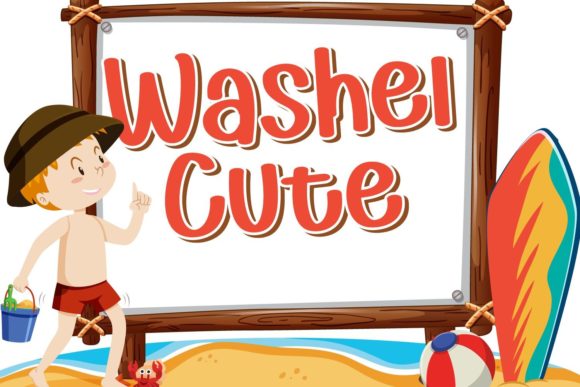
Introducing Washel Cute Font: The Perfect Addition to Your Designs
Are you looking for a font that can add a touch of youth and joy to your designs? Look no further than Washel Cute Font. This cool and friendly display font is perfect for party invitations, gatherings, and any design that requires a playful and youthful vibe.
What is Washel Cute Font?
Washel Cute Font is a display font designed to bring a smile to your face. Its cute and playful design makes it perfect for designs that require a touch of whimsy and fun. The font is easy to read and has a friendly feel to it, making it perfect for use in a variety of designs.
Features of Washel Cute Font
Washel Cute Font has several features that make it a great addition to your designs. Some of its key features include:
- Playful and youthful design
- Easy to read
- Perfect for party invitations and gatherings
- Great for use in designs that require a touch of whimsy and fun
- Cute and friendly feel
How to Use Washel Cute Font
Washel Cute Font is easy to use and can be incorporated into a variety of designs. Here are a few ways you can use this font:
- Party Invitations: Use Washel Cute Font to create fun and playful party invitations that will set the tone for your event.
- Gatherings: Whether you’re hosting a baby shower, bridal shower, or game night, Washel Cute Font is perfect for creating invitations and decorations.
- Designs: Add a touch of whimsy and fun to your designs with Washel Cute Font. Use it to create eye-catching headlines, titles, and more.
Benefits of Using Washel Cute Font
There are several benefits to using Washel Cute Font in your designs. Some of the benefits include:
- Adds a touch of youth and joy to your designs
- Perfect for designs that require a playful and youthful vibe
- Easy to read and understand
- Great for use in a variety of designs, from party invitations to decorations
Tips for Using Washel Cute Font
Here are a few tips for using Washel Cute Font in your designs:
- Use it sparingly: While Washel Cute Font is perfect for adding a touch of whimsy and fun to your designs, it’s best to use it sparingly. Use it for headlines, titles, and other important elements, but stick to a more traditional font for body text.
- Pair it with other fonts: Washel Cute Font pairs well with a variety of other fonts. Try pairing it with a clean, sans-serif font for a fun and playful look.
- Experiment with colors: Washel Cute Font looks great in a variety of colors. Experiment with different colors to find the perfect look for your design.
Washel Cute Font is a great addition to any design that requires a touch of youth and joy. Its playful and youthful design makes it perfect for party invitations, gatherings, and any design that requires a playful and youthful vibe. With its easy-to-read design and friendly feel, Washel Cute Font is sure to bring a smile to your face.
- What is Washel Cute Font? Washel Cute Font is a display font designed to bring a smile to your face. Its cute and playful design makes it perfect for designs that require a touch of whimsy and fun.
- What is Washel Cute Font used for? Washel Cute Font is perfect for party invitations, gatherings, and any design that requires a playful and youthful vibe.
- Is Washel Cute Font easy to read? Yes, Washel Cute Font is easy to read and has a friendly feel to it.